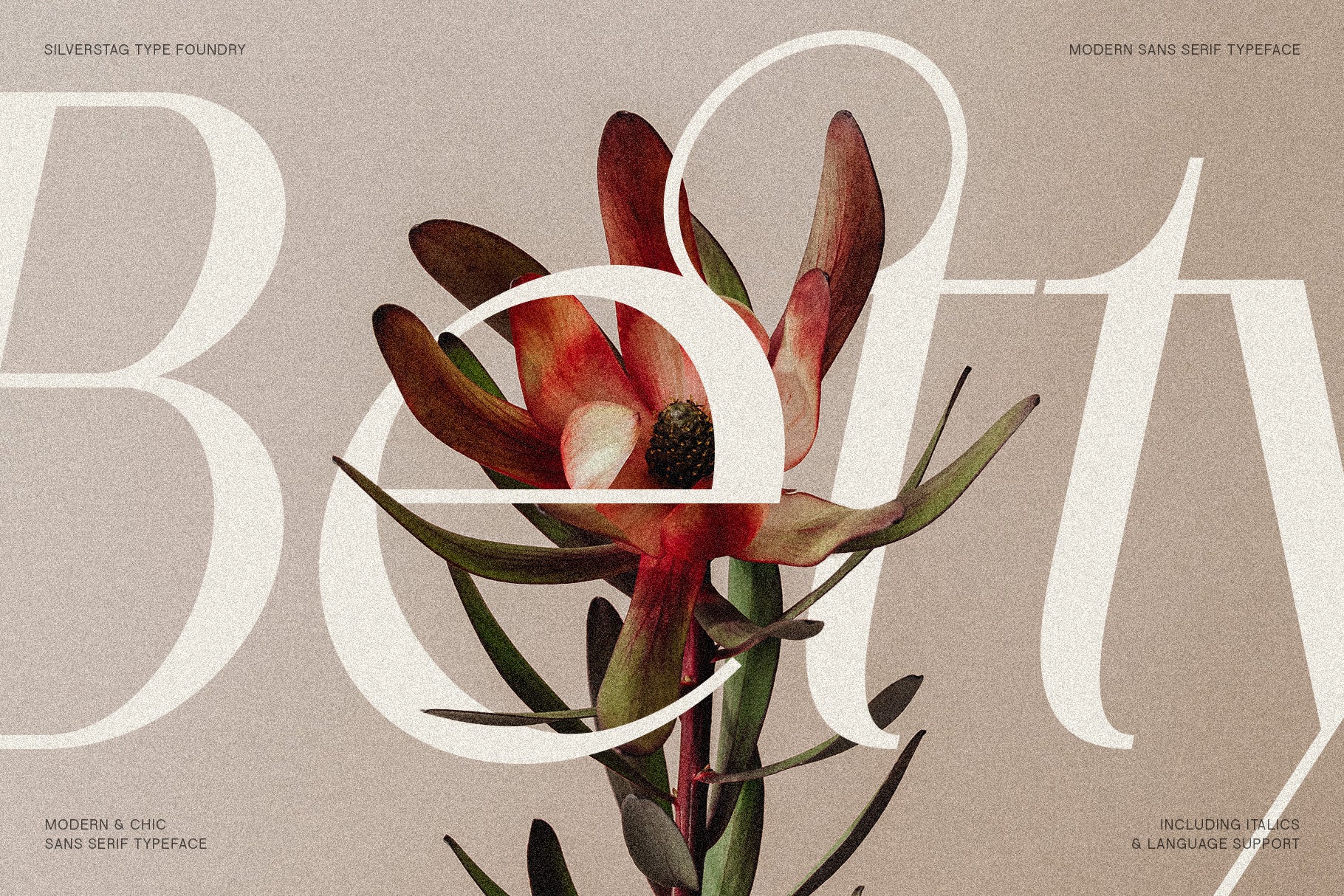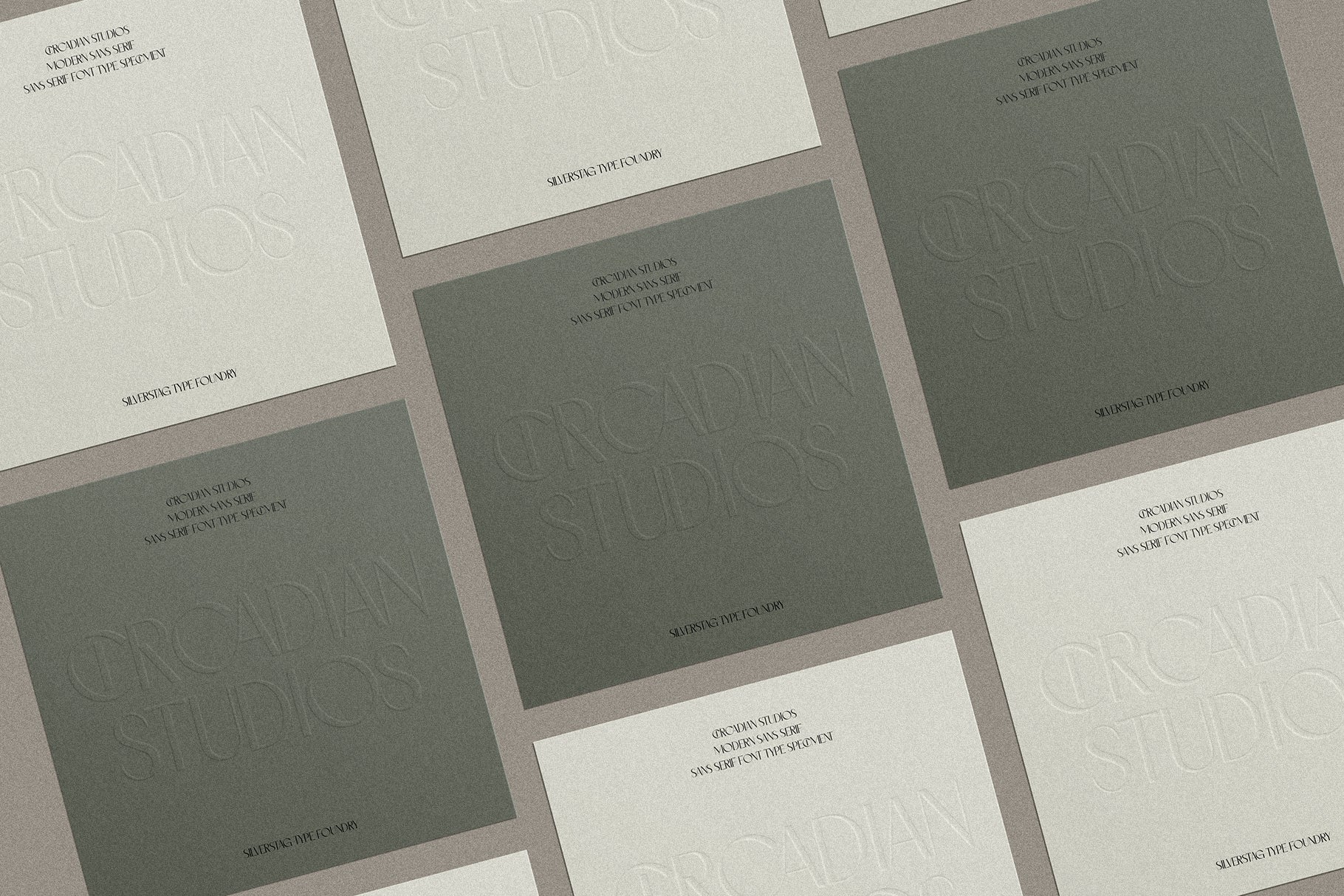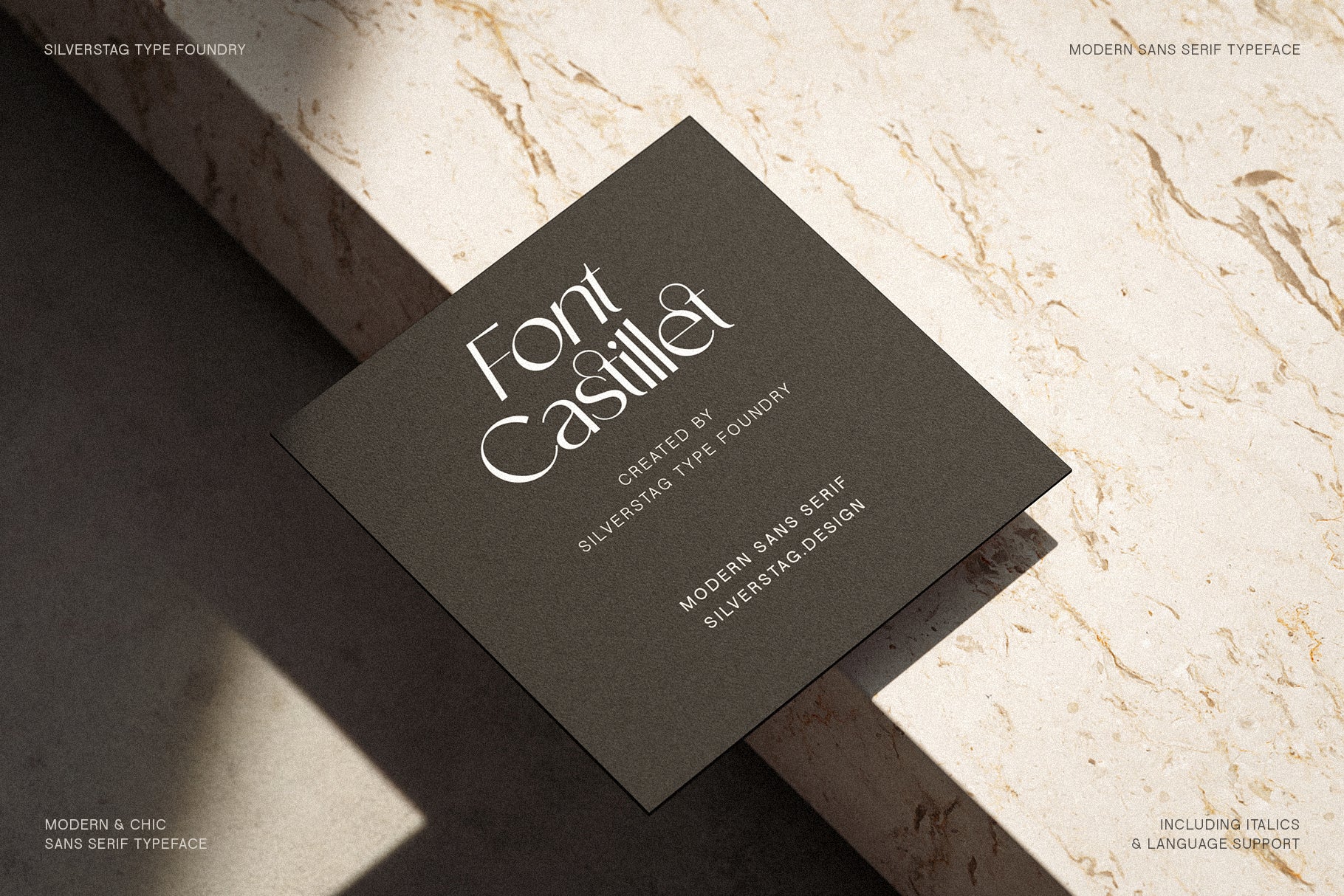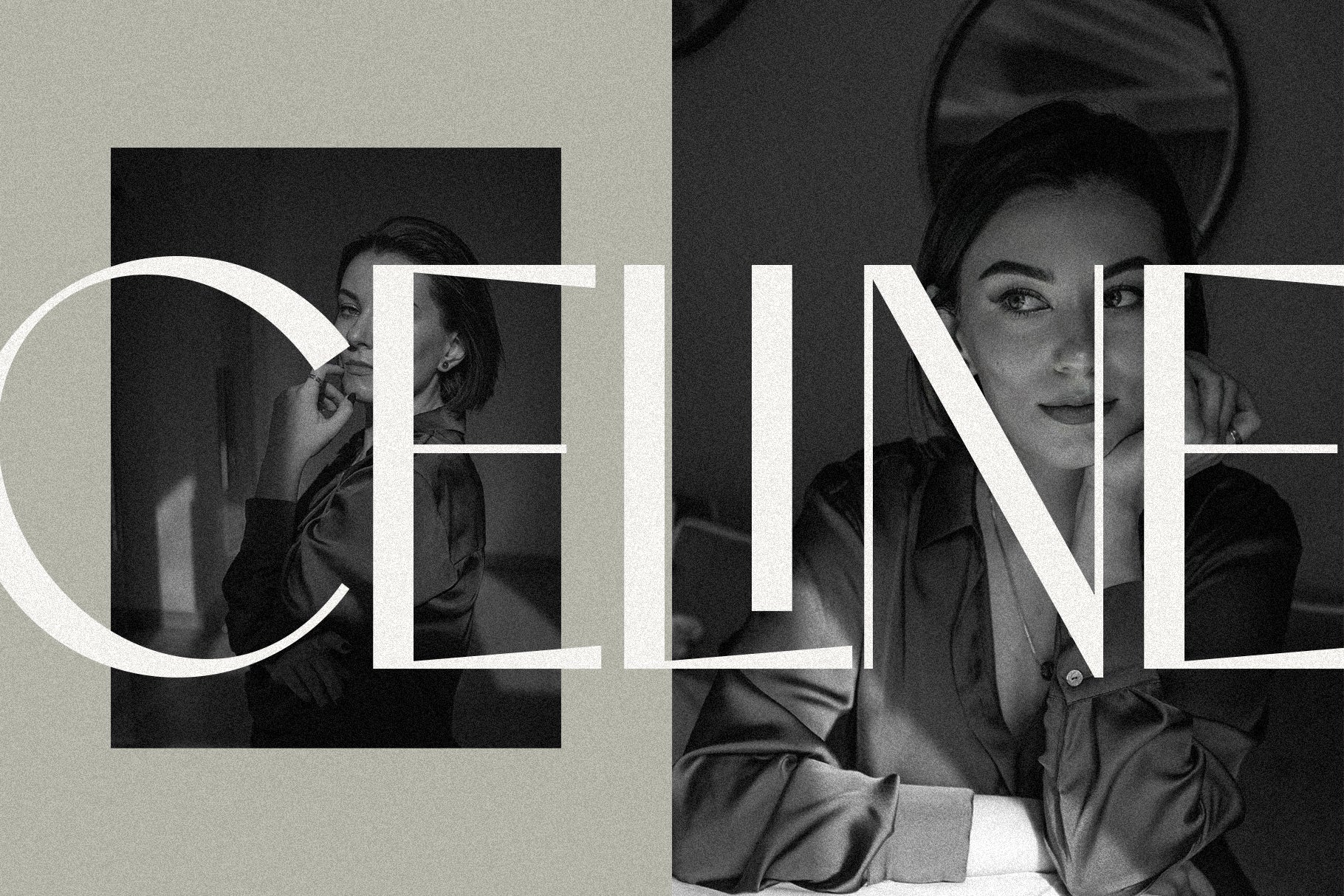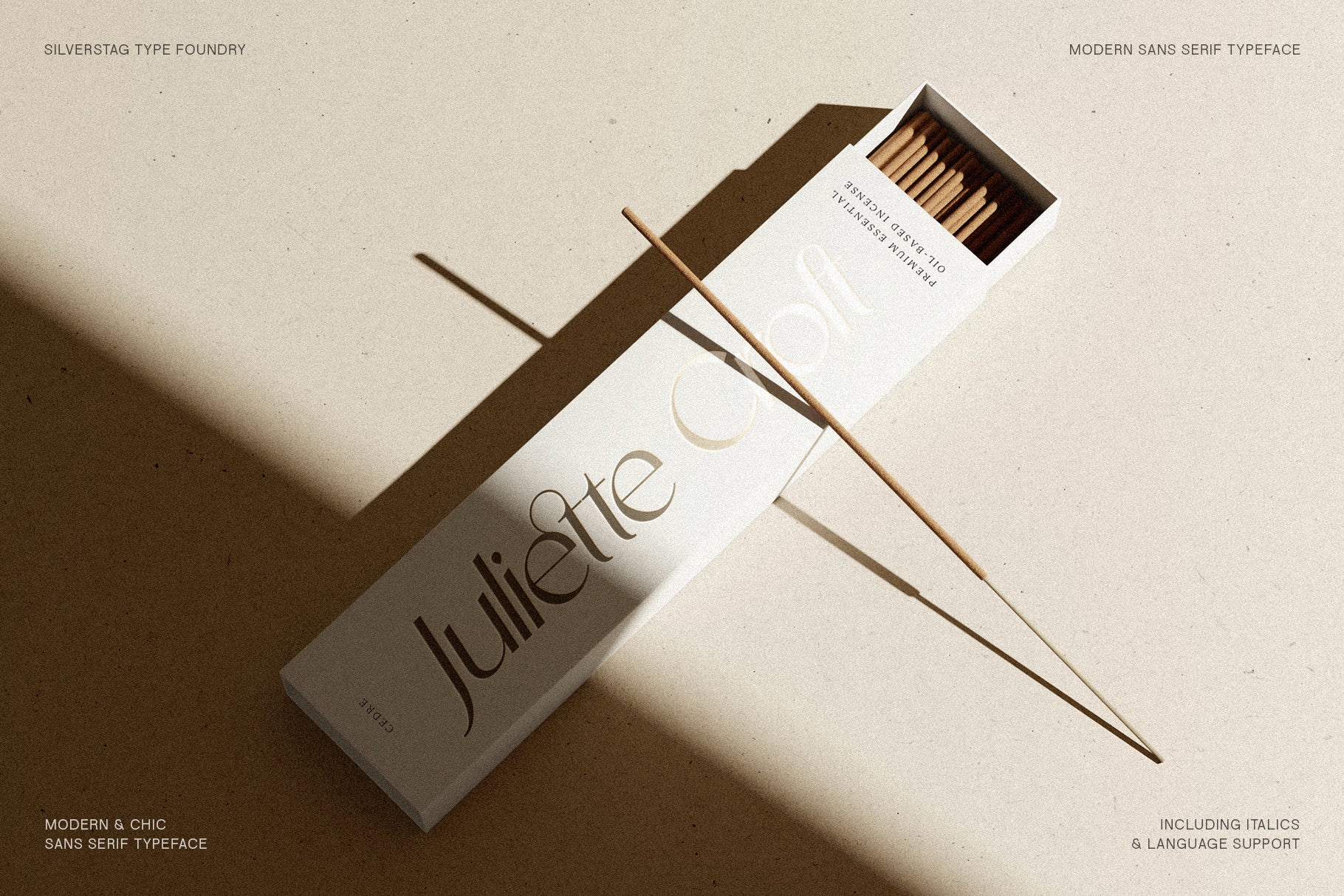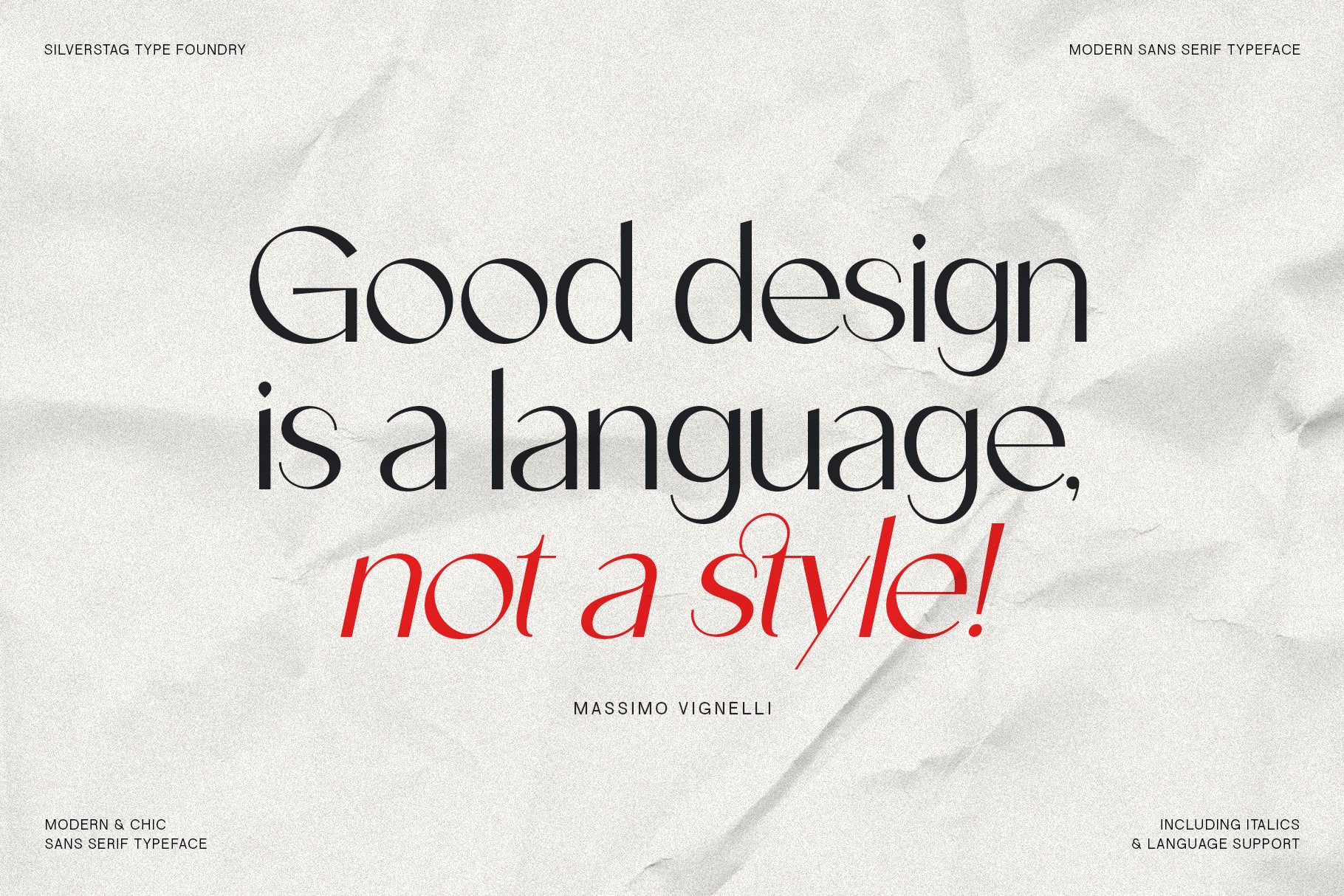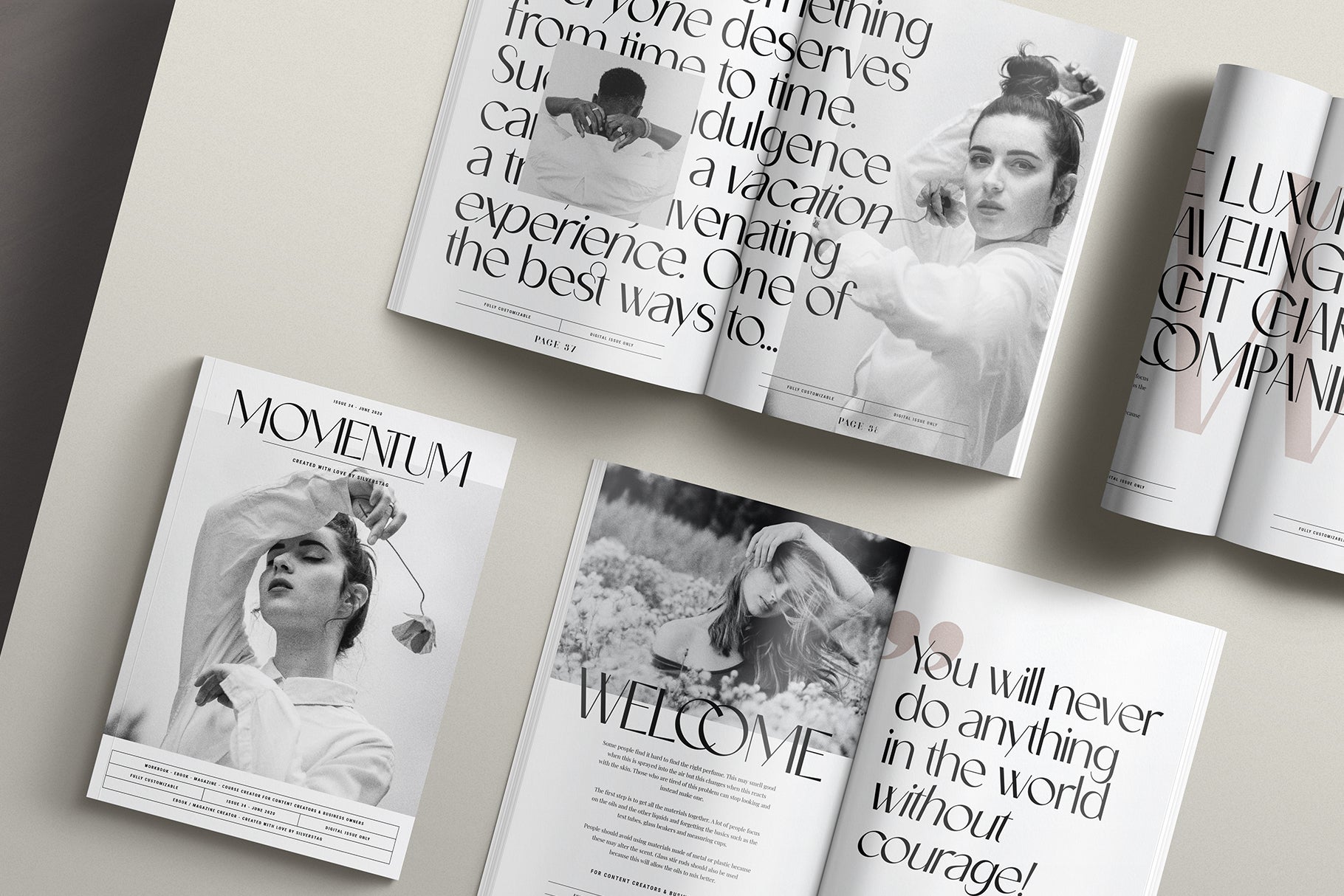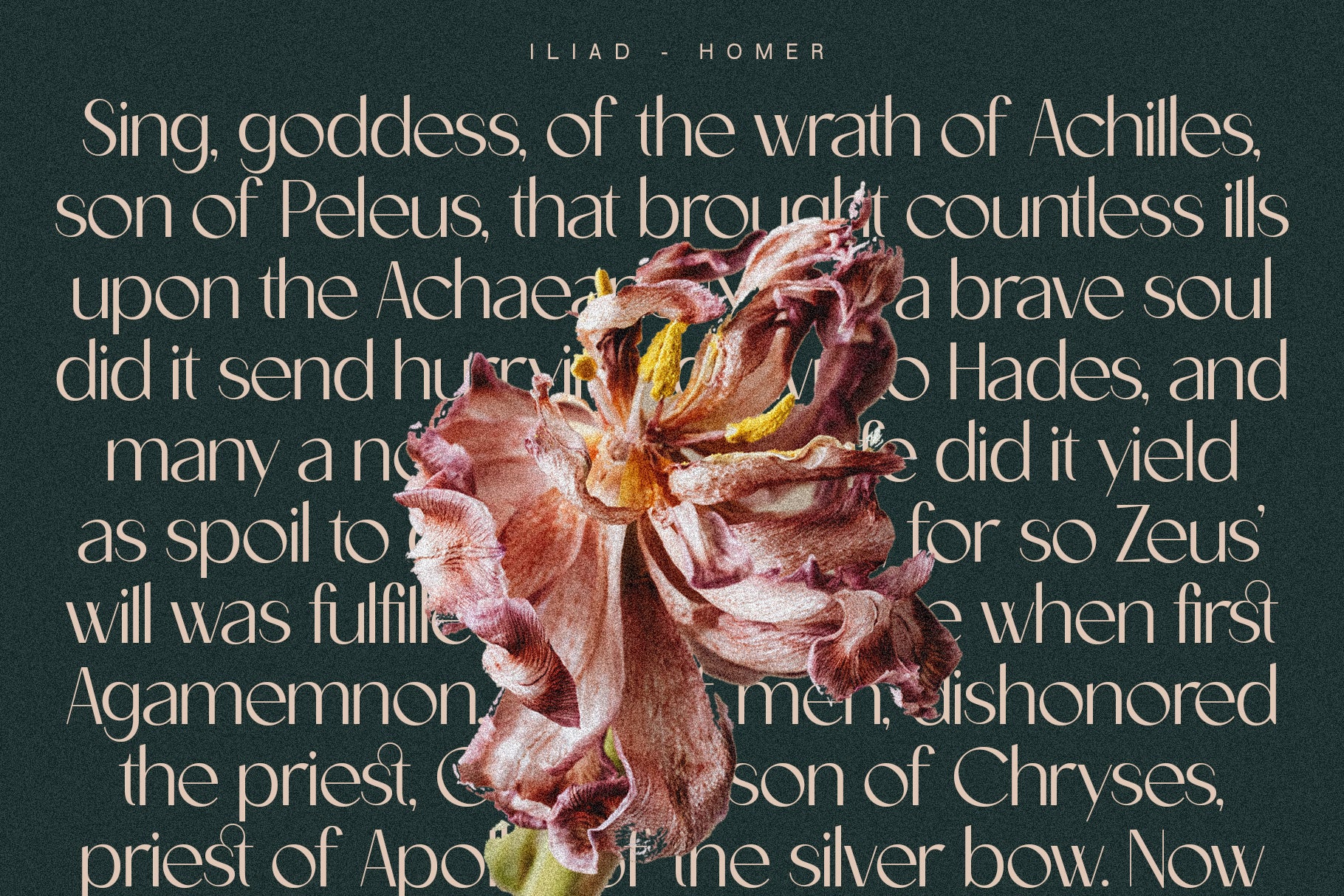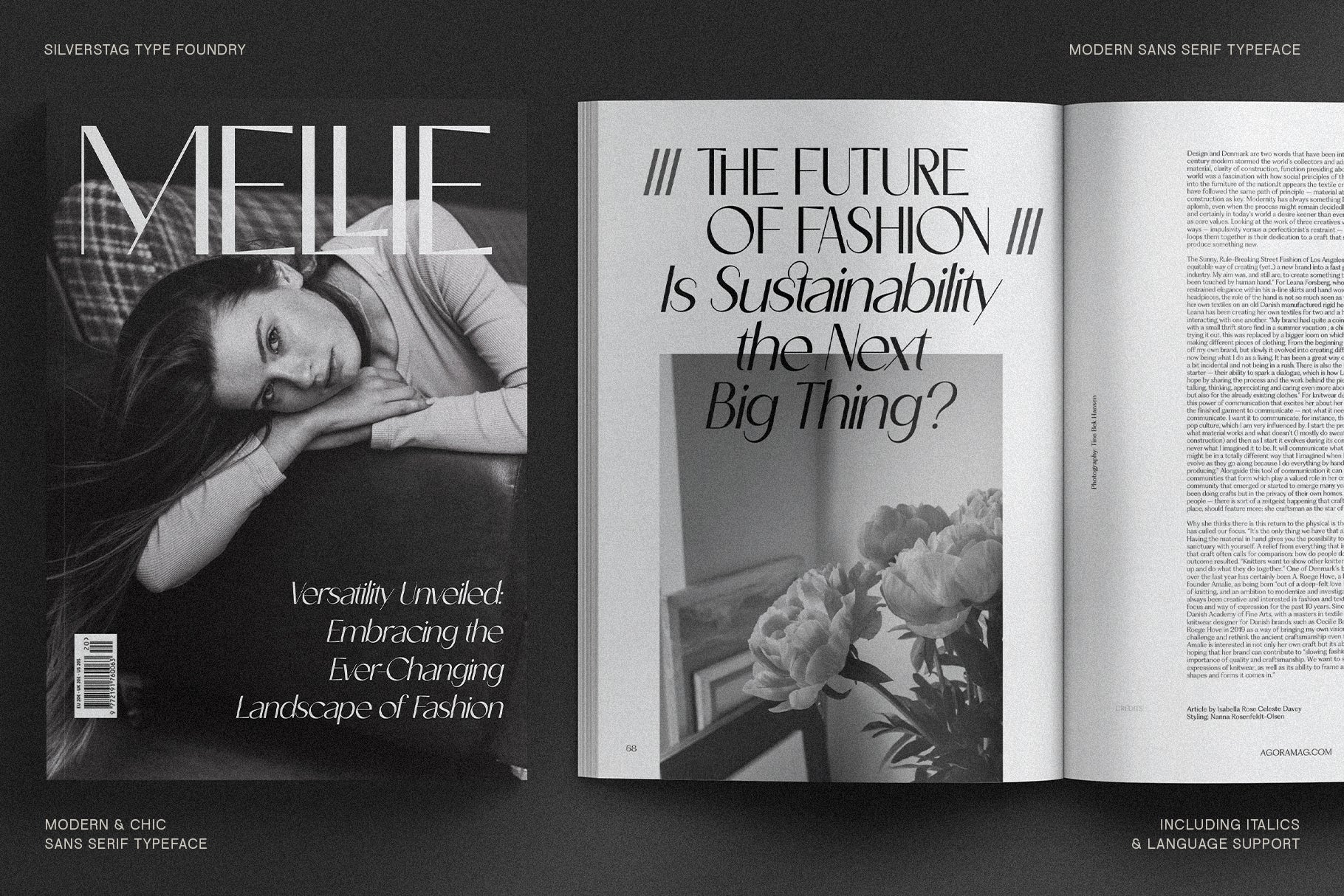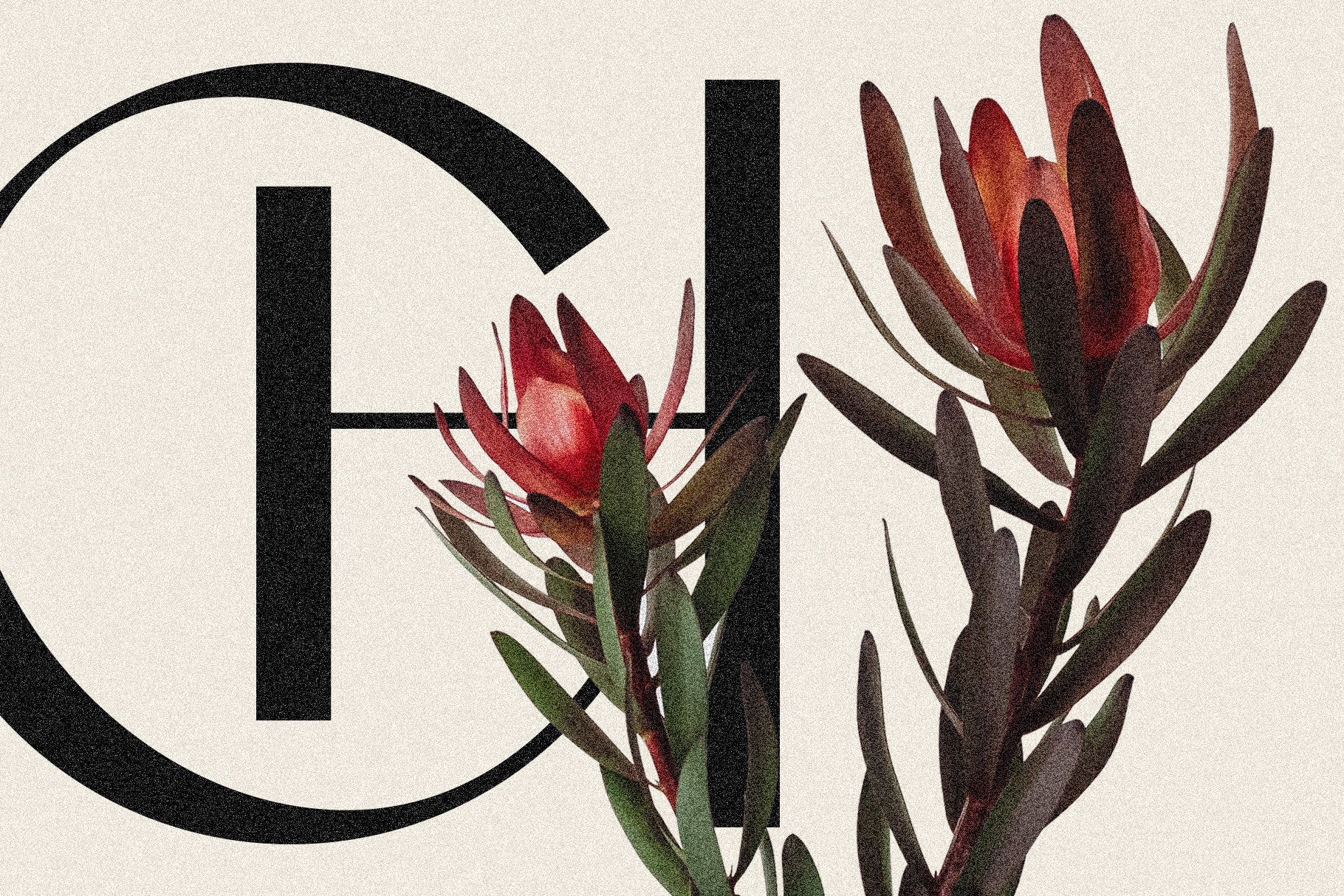
Castillet is a refined sans serif typeface designed to bring timeless elegance and modern edge into perfect balance. Inspired by the blend of old-world charm and contemporary design, this font captures the sophistication of fashion magazines and the clarity required in digital typography.
Castillet features two styles—Regular and Italic—with crisp contrast between thick and thin strokes. This high-contrast structure gives the font a luxurious feel while maintaining sharp legibility. The italic adds expressive movement and pairs beautifully with the regular style for dynamic editorial layouts, high-end branding, and polished website design.
Packed with 50+ ligatures, Castillet offers natural letter transitions that elevate logos, headlines, and typography with visual interest and subtle flair.
With support for over 90 languages, Castillet is as versatile as it is elegant—ready for global creatives who value design that’s both bold and graceful.